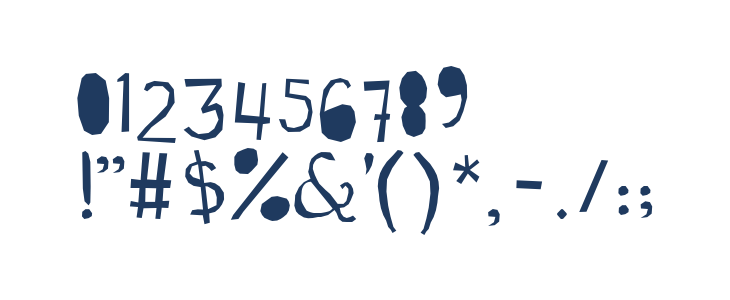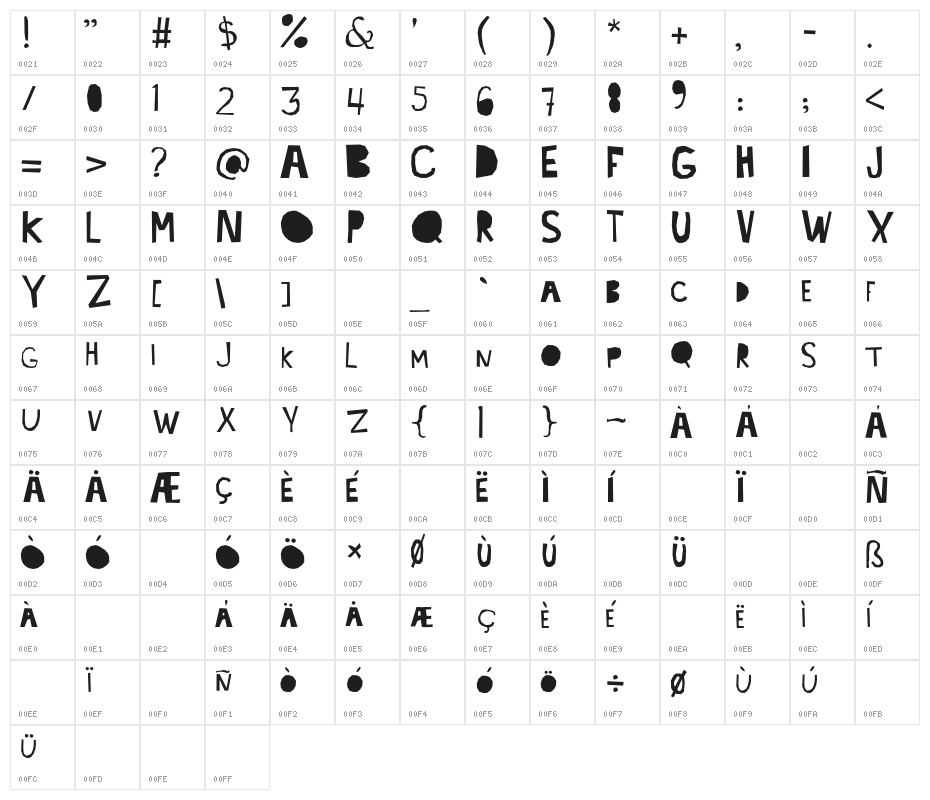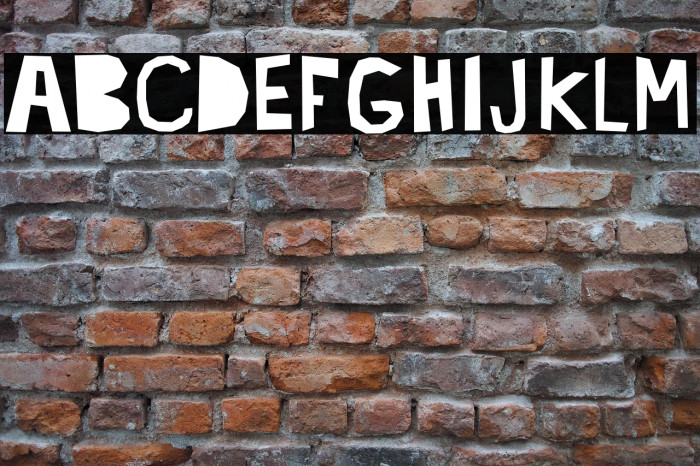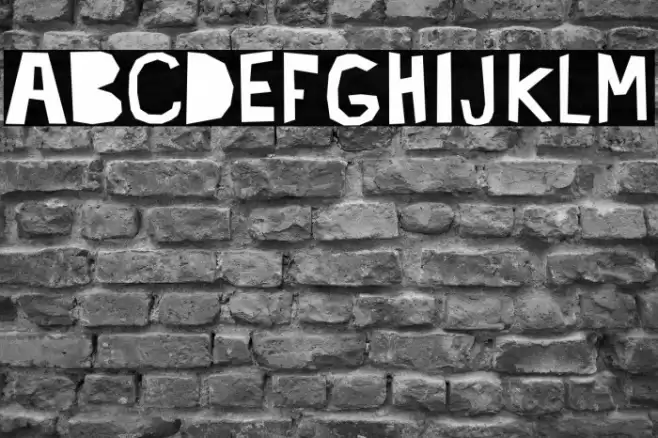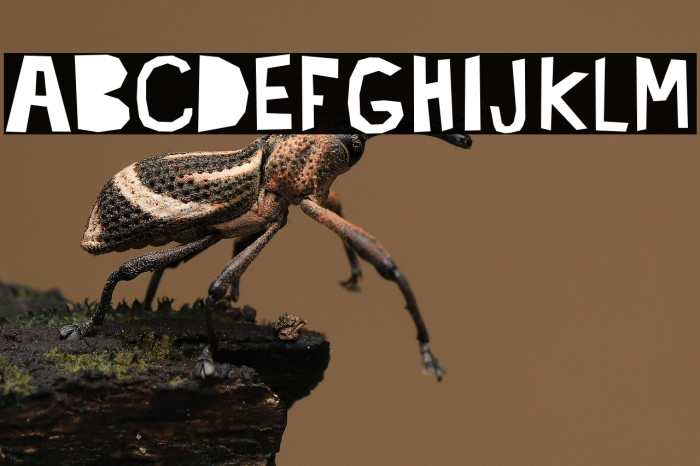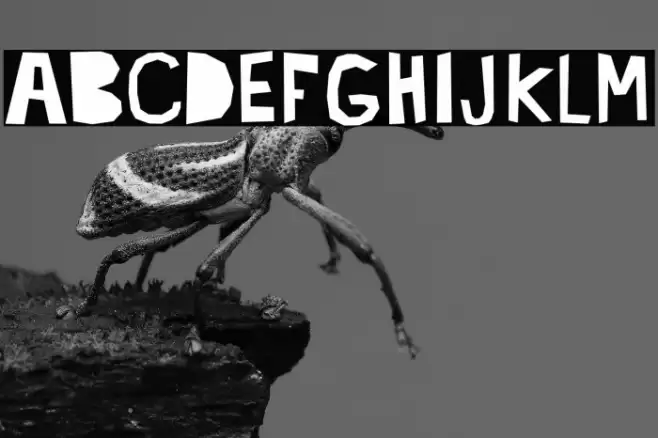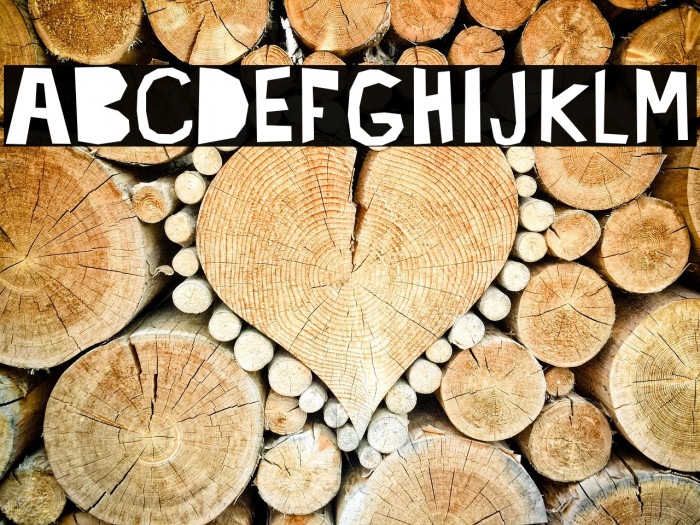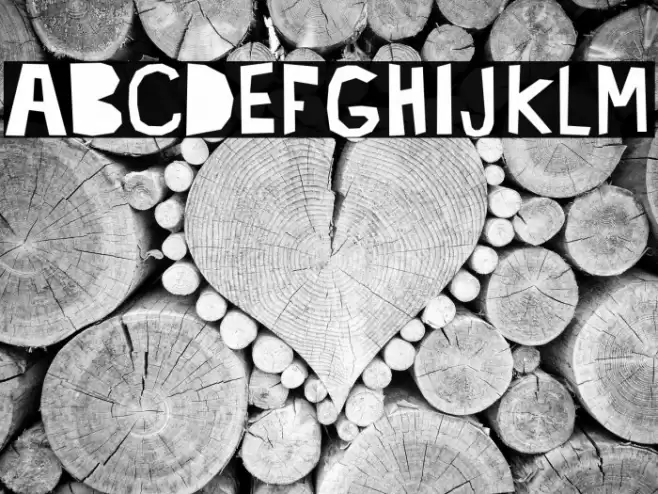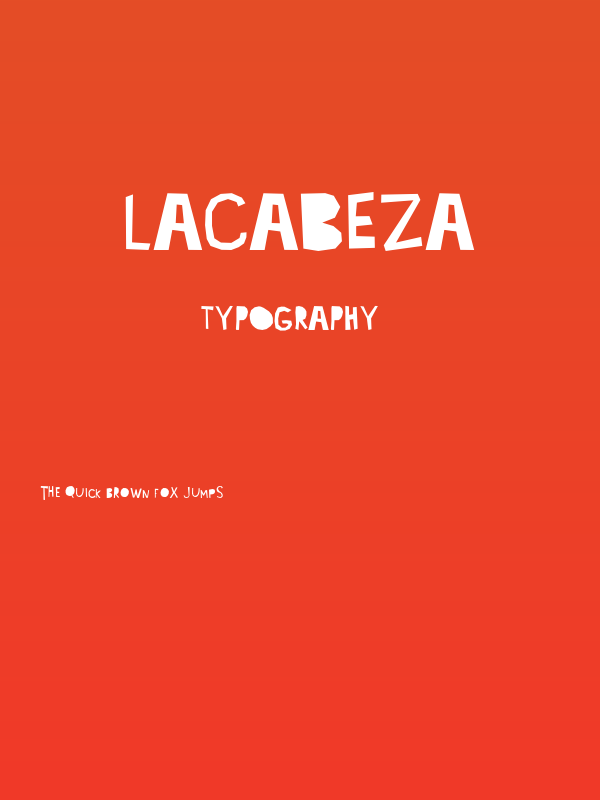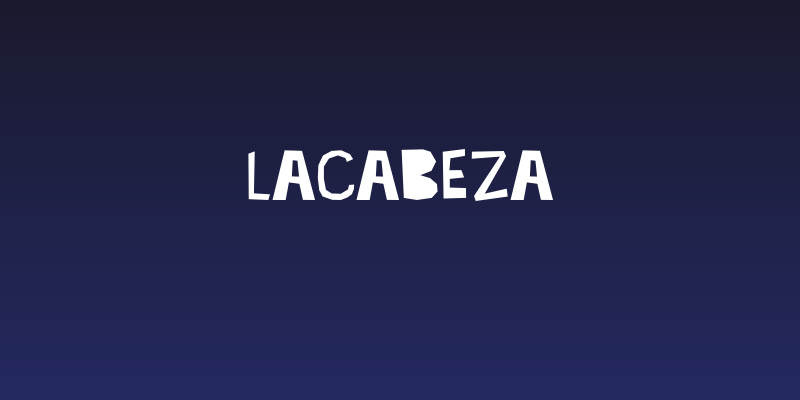
lacabeza Font
lacabeza Description
This font features a bold and playful design with irregular, hand-drawn characters that give it a unique and artistic appearance. The letters are unevenly shaped, with varying thicknesses and angles, creating a dynamic and energetic feel. The uppercase and lowercase letters maintain a consistent style, while the numbers and special characters complement the overall aesthetic. This font's distinctive look makes it stand out, ideal for projects that require a creative and informal touch.
| Overall Style | Artistic, Playful |
| Proposed Projects | Ideal for posters, children's books, creative branding, and artistic projects. |